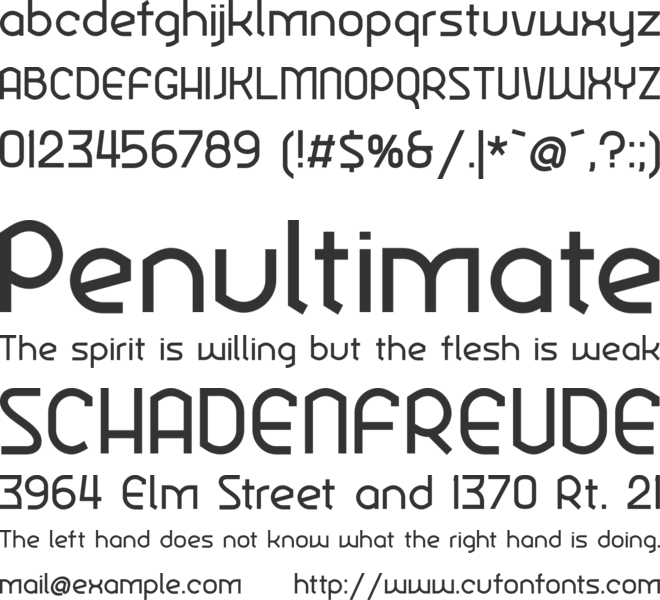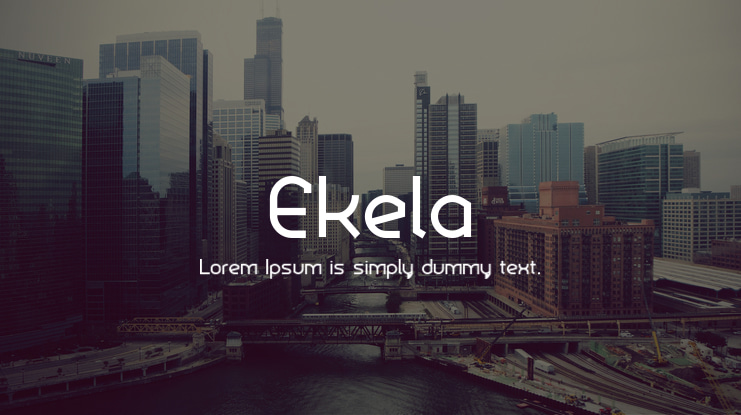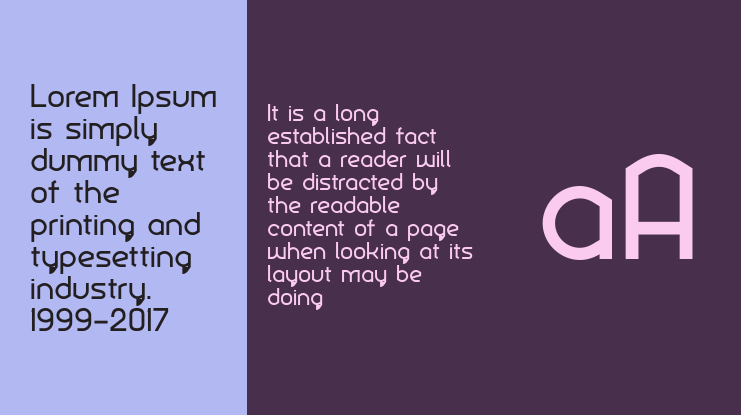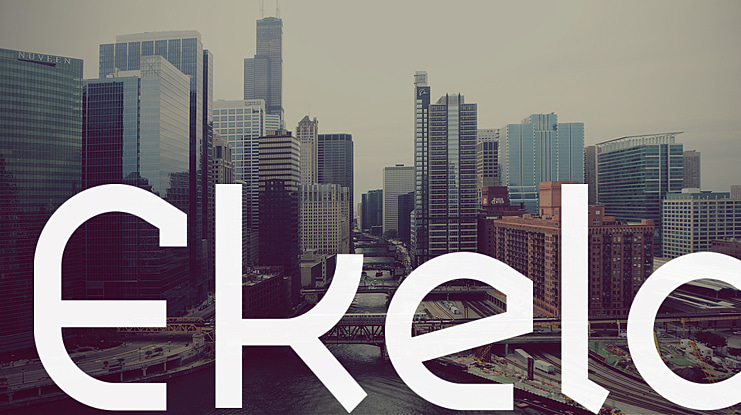
Ekela Font Family
Ekela is a simple, sans serif font. Suitable to a wide variety of designs due to its neat style, Ekela has the potential to become your favorite go-to font, no matter the occasion!
Ekela Condensed is a minimal and neat sans serif font. It can easily be matched to an incredibly large set of projects, so add it to your creative ideas and notice how it makes them stand out!